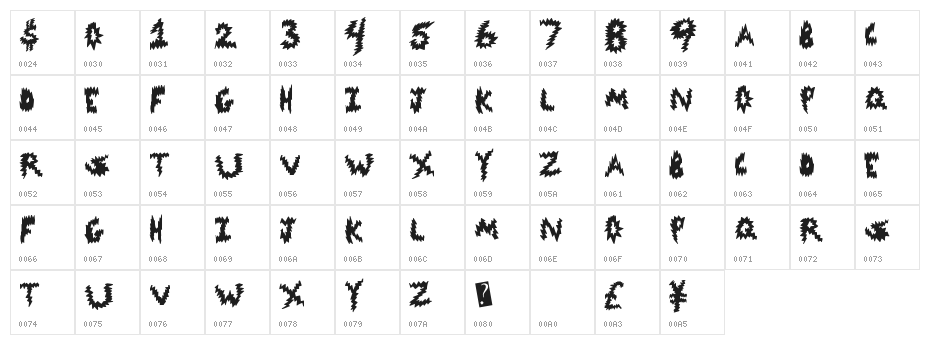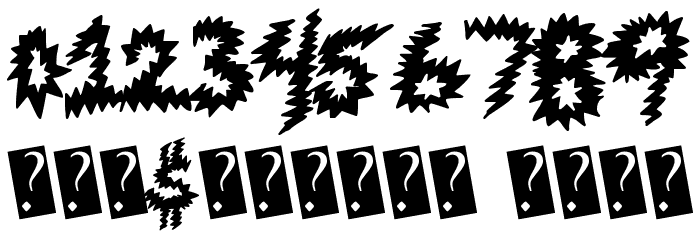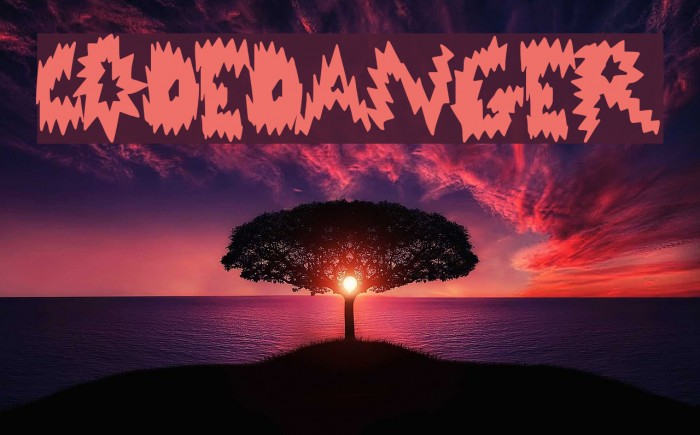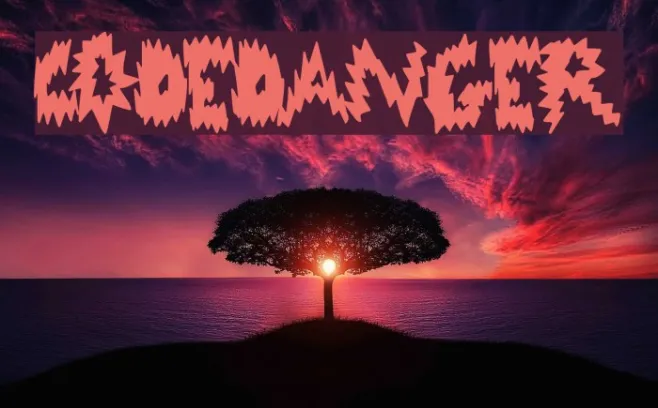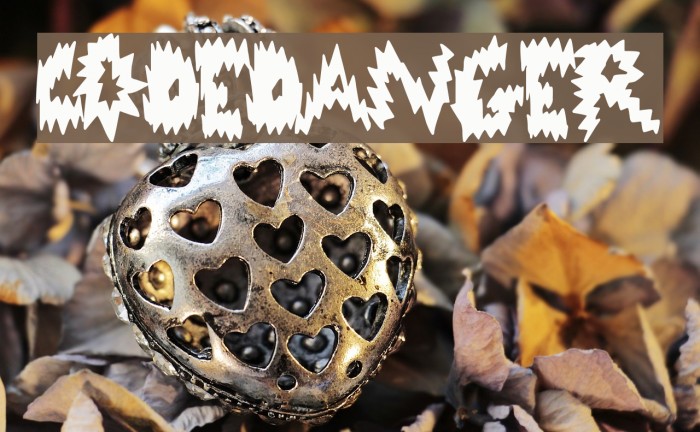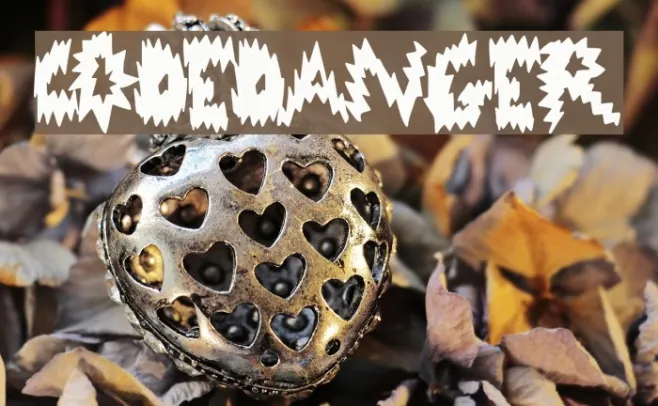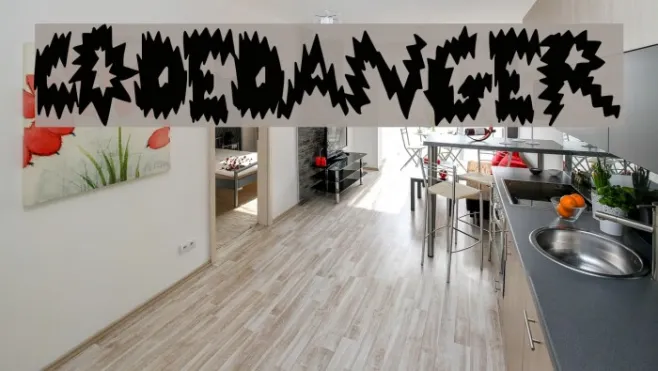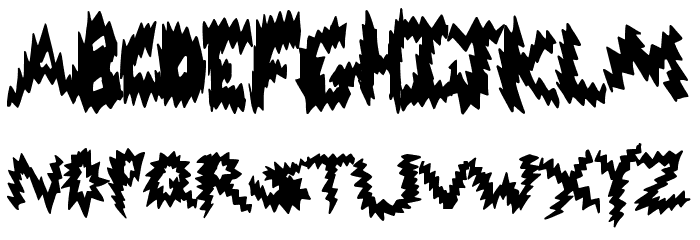
CodeDanger Font
CodeDanger Description
This font features a jagged, electrifying design that gives each character a dynamic and energetic appearance. The sharp, zigzag edges create a sense of movement and intensity, making it stand out dramatically. The uppercase and lowercase letters maintain a consistent style, with each character exhibiting a bold and striking presence. The numbers and special characters follow the same design principles, ensuring a cohesive look across all elements. This font is ideal for projects that require a bold statement or a sense of urgency and excitement.
CODEDANGER UPPERCASE
CODEDANGER LOWERCASE
CODEDANGER OTHER CHARS